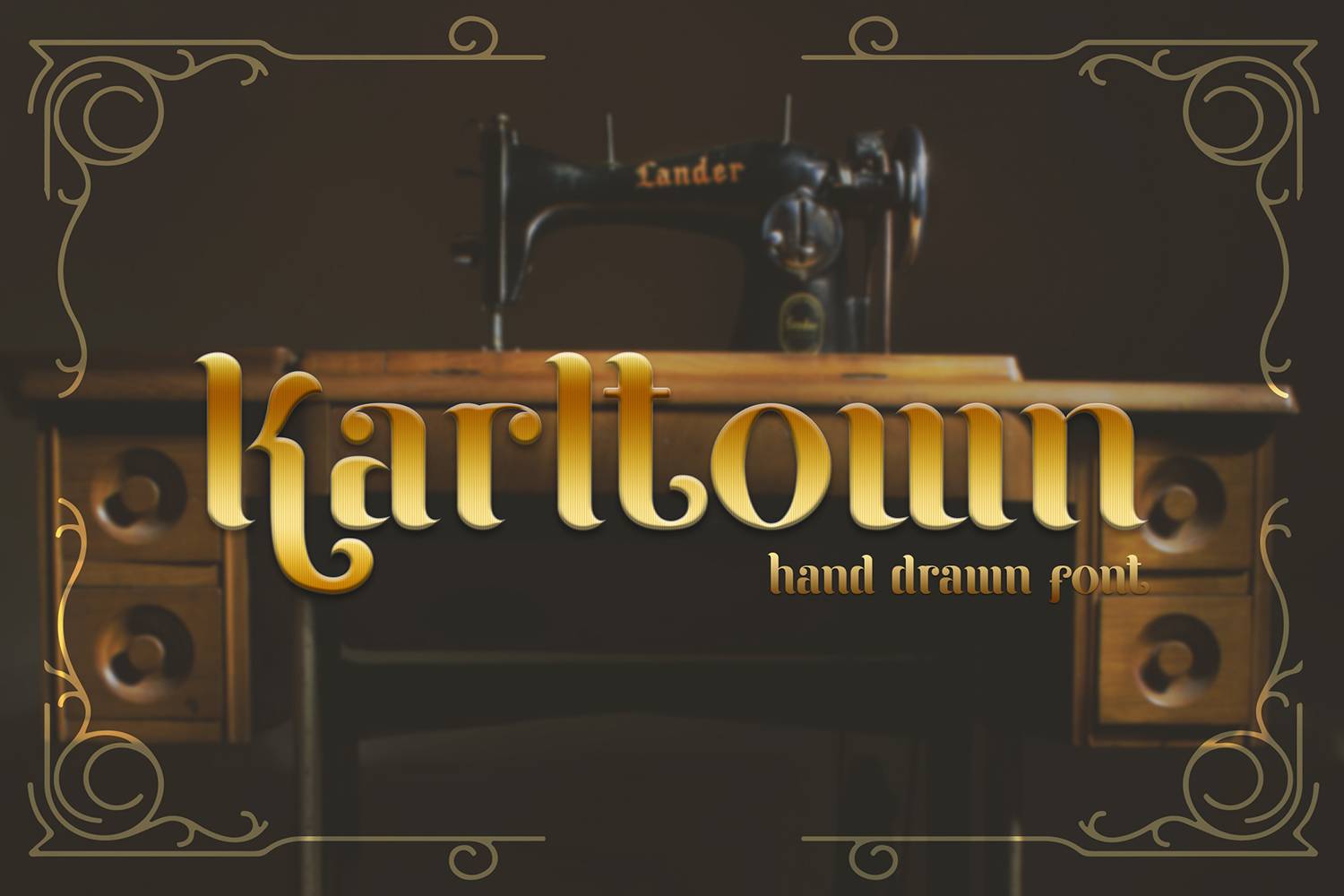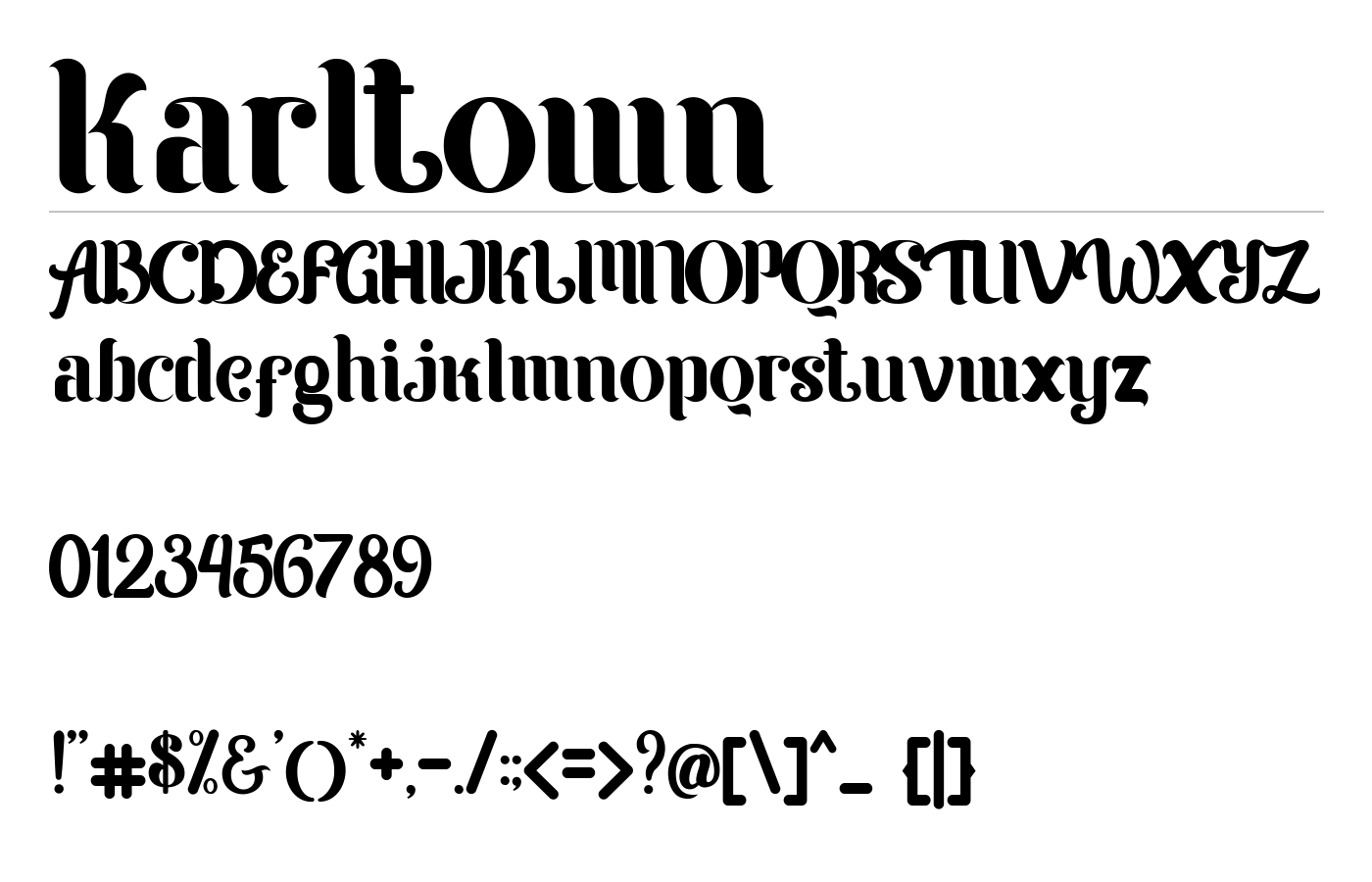
Karltown is a bold serif font with a strong presence, featuring thick strokes and subtle contrast that give it a vintage yet sophisticated feel. Its condensed letterforms and quirky details, like curled terminals and unique letter shapes, bring personality and charm, making it ideal for eye-catching headlines, fashion branding, and retro-inspired design projects. This font works well where boldness and character are needed to create a memorable and stylish impression.
Karltown Font
About Karltown Font